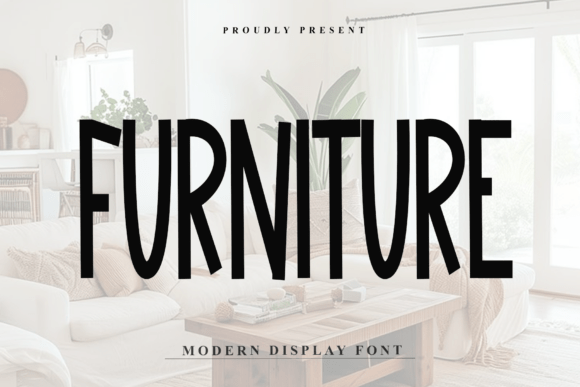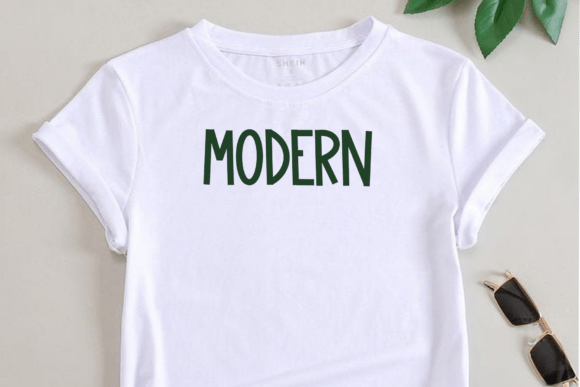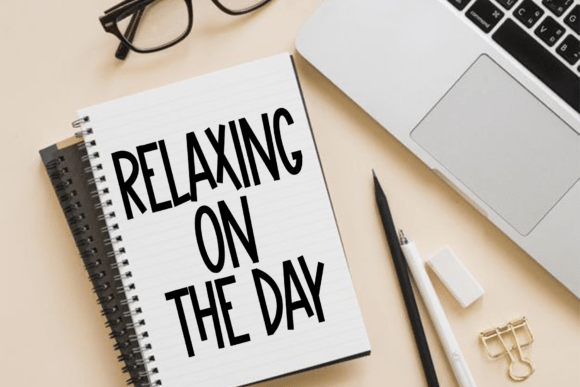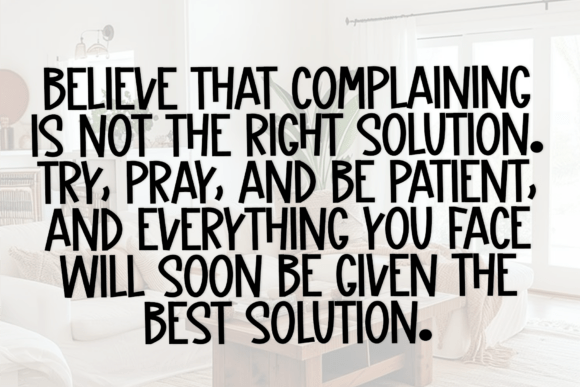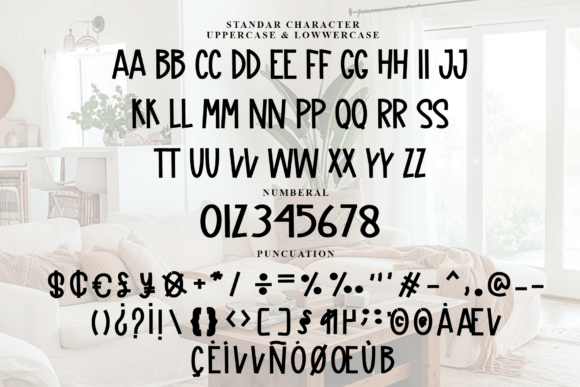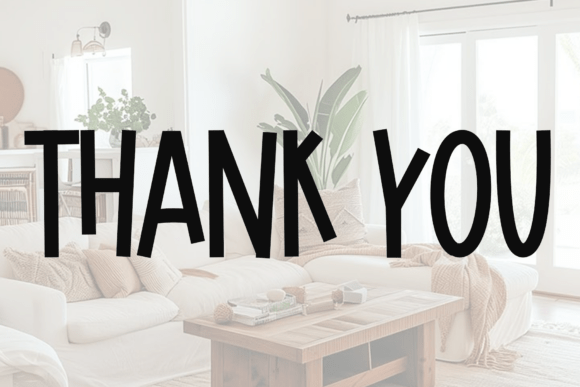
Finding the Perfect Piece: Unpacking the Allure of Furniture Font
Have you ever stumbled upon a beautifully crafted wooden bench at a vintage market, and instantly felt the urge to bring its unique character into your design work? For designers, finding the perfect visual language to convey a sense of adventure and organic charm can be a daunting task. That’s where Furniture Font comes in – a stylish handwritten font that masterfully blends the rustic with the refined.
As part of the “Unique and Professional” collection, Furniture Font is designed to make a lasting impression, even in the most busy of designs. Its well-balanced proportions and “bouncy” rhythm give it a friendly and approachable character that’s perfect for outdoor lifestyle branding, organic product packaging, and rustic event invitations. For designers looking to add a touch of handmade sophistication to their projects, Furniture Font is a valuable addition to their toolkit.
- Unique Characteristic: Custom-designed furniture-inspired icons and glyphs for added visual interest
Furniture Font Review
I recently had the chance to try out Furniture Font, a typeface designed specifically for use in furniture and home decor contexts. While it’s not perfect, I found some things that really stood out. ✨
The thing I love most about Furniture Font is its approachable, friendly feel. It’s a great choice for creating a welcoming atmosphere in any space, whether it’s a living room, bedroom, or outdoor patio. The font is highly legible, making it perfect for signage, labels, and other text-based applications. Additionally, its wide range of weights and styles provides endless possibilities for customization.
Here are a few specific strengths I noticed:
- High legibility and readability
- Wide range of weights and styles
- Approachable, friendly feel
- Perfect for signage, labels, and text-based applications
Of course, no font is perfect, and Furniture Font has some limitations. ⚠️
One major issue I had with Furniture Font was its limited support for languages other than English. This might be a problem for designers working on projects that require text in multiple languages. Additionally, some of the font’s styles and weights felt a bit inconsistent, which took away from its overall polish.
Overall, I’d say Furniture Font is a solid choice for designers working in the furniture and home decor space. While it’s not perfect, its friendly feel and high legibility make it a great option for a wide range of applications. With a bit of refinement and expanded language support, I think it could be a truly exceptional font.
Tips for Getting the Most Out of Furniture Font
Use Furniture Font for designs that require a modern and minimalist aesthetic.
Pair Furniture Font with bold and colorful graphics for a striking visual effect.
Experiment with different font sizes and styles to create a unique and eye-catching design.
Furniture Font is ideal for:
Home decor and furniture catalogs.
Interior design and architecture projects.
Minimalist-themed marketing materials.